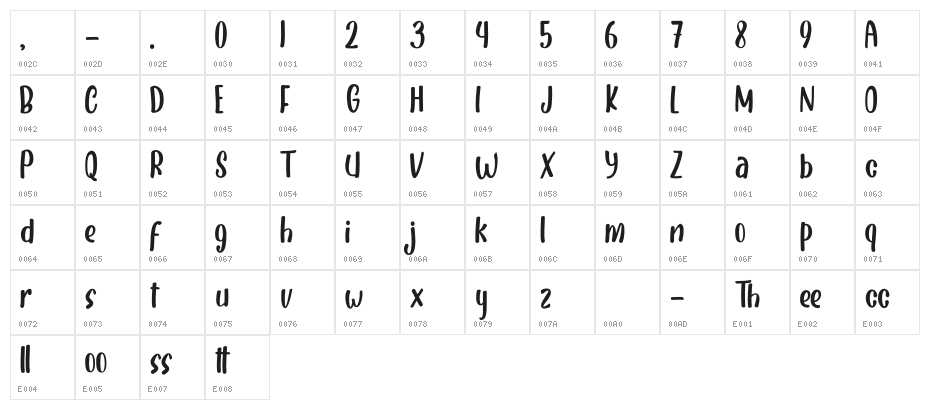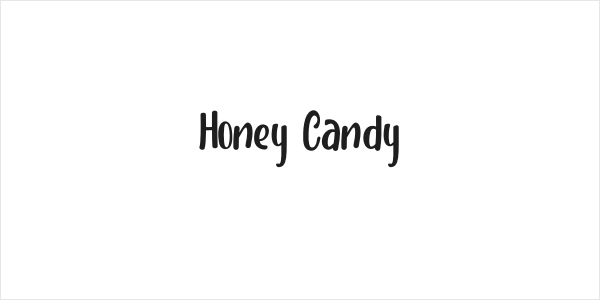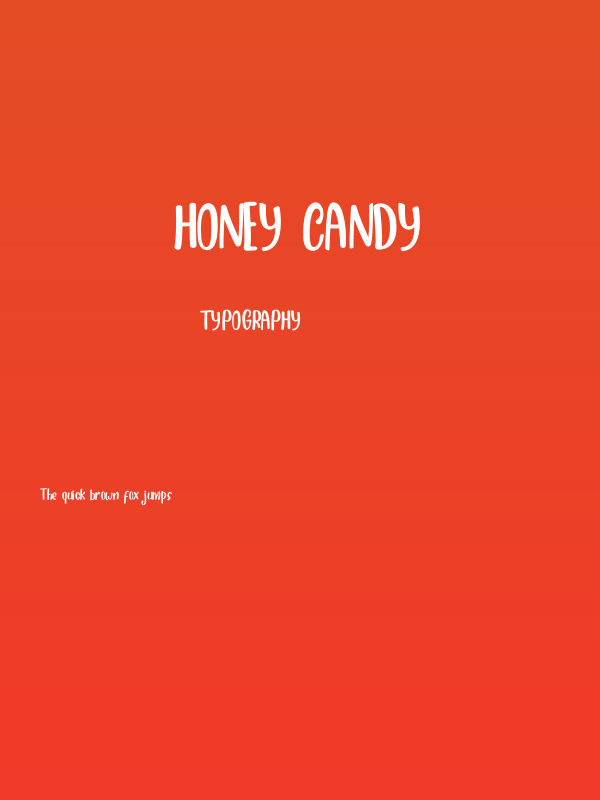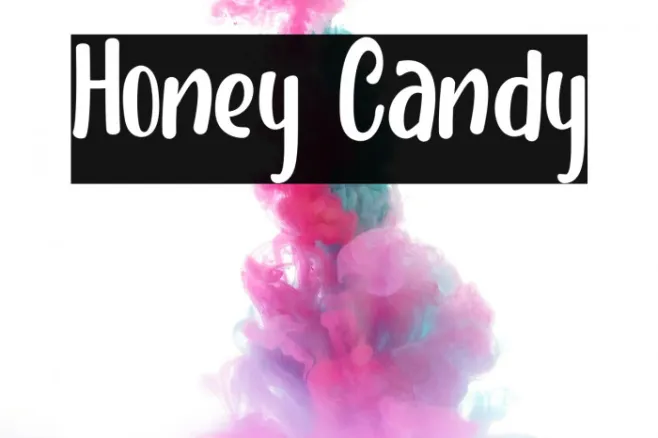
Honey Candy Font
Honey Candy Description
This playful and whimsical font features a handwritten style with smooth, rounded edges and a friendly, approachable appearance. The characters are slightly slanted, giving a casual and relaxed feel. The uppercase letters are bold and prominent, while the lowercase letters maintain a consistent flow with a touch of flair in their curves. Numbers are clear and easy to read, matching the overall style. The special characters are creatively integrated, maintaining the font's unique personality. This font is perfect for projects that require a fun and lively touch.
| Use Case | Headlines, Logos, Social media graphics |
| Proposed Projects | Ideal for children's books, greeting cards, playful branding, and social media graphics. |